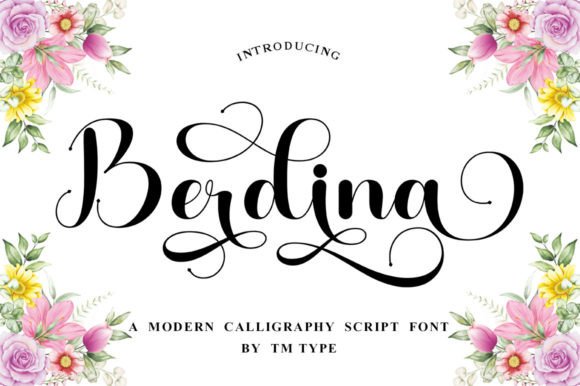
The Berdina Font: A Charming and Elegant Addition to Your Design Arsenal
I’ll never forget the time I was working on a wedding invitation project, and my client asked for a font that was both elegant and whimsical. I scoured the internet, tried out dozens of fonts, but nothing seemed quite right. That was until I stumbled upon Berdina Font. ✨ It was love at first sight! The flowing lines, the charming ligatures, and the overall sophisticated feel won me over. In this article, I’ll share my experience with Berdina Font, its features, and how to make the most of it in your designs.
An Honest Review of Berdina Font
- ✅ Elegant and charming aesthetic, perfect for wedding invitations, quotes, and greeting cards
- ✅ Versatile and can be used for logos, business cards, and more
- ✅ Handwritten touch that adds a personal feel to designs
While Berdina Font is an excellent choice, there are a few things to keep in mind: 🤔
- ⚠️ Limited availability of bold or italic variations, which may limit its use in certain design contexts
- ⚠️ May not be suitable for body text or long-form content due to its elegant, cursive nature
The Story Behind Berdina Font
Berdina Font was designed with elegance and charm in mind. Its creator aimed to craft a font that would evoke a sense of sophistication and whimsy, perfect for designs that require a personal touch. While the exact story behind Berdina Font may be unknown, its beauty and versatility have made it a favorite among designers and crafters.
Q: Is Berdina Font suitable for body text or long-form content?
A: While Berdina Font is beautiful, it’s not ideal for body text or long-form content due to its elegant, cursive nature. It’s best used for headings, titles, or short paragraphs.